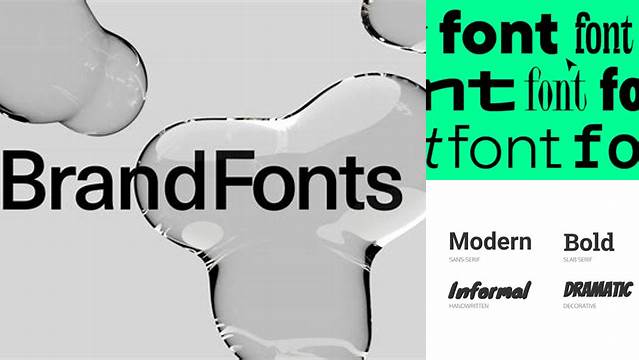
Understanding Font Packs
What exactly is a font pack? Simply put, it's a collection of fonts that are bundled together and sold as a single product. These packs often include a variety of styles, weights, and sizes, giving you a wide range of options to choose from. Font packs are a great way to expand your font library quickly and affordably.
Benefits of Using Font Packs
Using font packs offers several advantages. First, they're cost-effective. Buying individual fonts can be expensive, but a font pack gives you multiple fonts for the price of one. Second, they save time. Instead of searching for individual fonts, you can get a whole collection with a single purchase. Third, they offer variety. Font packs often include a range of styles, from classic serifs to modern sans-serifs, ensuring you have the right font for any project. This variety is crucial in maintaining visual interest and ensuring that your designs stand out. By investing in a font pack, you equip yourself with the tools needed to create stunning visuals that capture attention and convey your message effectively.
Types of Font Packs Available
There are various types of font packs available, each catering to different design needs. Some packs focus on a specific style, such as vintage or geometric fonts. Others offer a mix of styles to provide versatility. Understanding the different types of font packs can help you choose the right one for your project. Consider what kind of projects you typically work on and choose a pack that aligns with your design aesthetic. For example, if you often design for corporate clients, a pack of clean, professional sans-serif fonts would be a good choice. On the other hand, if you work on more creative projects, a pack of hand-drawn or script fonts might be more suitable. The key is to select a font pack that enhances your creative process and adds value to your designs.
Choosing the Right Font Pack
Selecting the right font pack can be a daunting task, but with a few considerations, you can make an informed decision. Start by identifying your design needs and preferences. What types of projects do you typically work on? What styles do you gravitate towards? Once you have a clear understanding of your needs, you can start browsing font packs that align with your criteria. Look for packs that offer a variety of styles and weights to ensure versatility. Also, consider the licensing terms. Make sure the font pack allows you to use the fonts for your intended purposes. By carefully evaluating your needs and researching your options, you can choose a font pack that enhances your design capabilities and helps you create stunning visuals.
Factors to Consider
Several factors should influence your choice of a font pack. Consider the readability of the fonts, especially if you're designing for the web. Also, think about the scalability of the fonts. Can they be used effectively in both small and large sizes? Additionally, pay attention to the character set. Does the font pack include all the characters you need, such as punctuation marks and accented characters? Finally, consider the overall aesthetic of the fonts. Do they align with your brand and style? By carefully considering these factors, you can choose a font pack that meets your technical and creative needs.
Where to Find Font Packs
Top Font Pack Trends in 2026
As we look ahead to 2026, several font pack trends are emerging. These trends reflect the evolving landscape of design and technology, and understanding them can help you stay ahead of the curve. From minimalist sans-serifs to bold display fonts, the font pack trends of 2026 offer something for everyone.
Minimalist Sans-Serifs
Minimalist sans-serif fonts continue to be popular in 2026. These fonts are clean, simple, and highly readable, making them ideal for a wide range of applications. A font pack featuring minimalist sans-serifs can be a versatile addition to your font library. These fonts work well in both headings and body text, and they pair well with a variety of other styles. If you're looking for a font pack that offers timeless elegance and readability, a minimalist sans-serif collection is a great choice.
Bold Display Fonts
Bold display fonts are making a statement in 2026. These fonts are designed to grab attention and create impact, making them perfect for headlines, logos, and branding materials. A font pack featuring bold display fonts can help you create eye-catching designs that stand out from the crowd. Experiment with different weights and styles to find the perfect font for your project. Whether you're designing a poster, a website, or a social media graphic, a bold display font can help you make a lasting impression.
Variable Fonts
Variable fonts are gaining traction in 2026. These fonts allow you to adjust various parameters, such as weight, width, and slant, giving you unprecedented control over your typography. A font pack featuring variable fonts can offer endless possibilities for customization and creativity. Explore the different parameters and create unique variations that perfectly match your design needs. Variable fonts are a cutting-edge technology that is transforming the world of typography, and they're definitely worth exploring in 2026.
Retro and Vintage Fonts
Retro and vintage fonts are experiencing a resurgence in 2026. These fonts evoke a sense of nostalgia and charm, making them perfect for projects that require a touch of character and personality. A font pack featuring retro and vintage fonts can help you create designs that stand out from the crowd. These fonts often feature unique details and quirks that add to their appeal. If you're looking for a font pack that offers a timeless aesthetic and a touch of whimsy, a retro and vintage collection is a great choice.
Geometric Fonts
Geometric fonts are a staple in modern design, and they continue to be popular in 2026. These fonts are characterized by their clean lines and geometric shapes, giving them a sleek and contemporary look. A font pack featuring geometric fonts can be a versatile addition to your font library. These fonts work well in both headings and body text, and they pair well with a variety of other styles. If you're looking for a font pack that offers a modern aesthetic and excellent readability, a geometric collection is a great choice.
How to Install and Manage Font Packs
Installing and managing font packs is a straightforward process, but it's important to follow the correct steps to avoid potential issues. Whether you're using Windows, macOS, or Linux, the process is similar. First, download the font pack from your chosen source. Then, extract the files from the archive. Finally, install the fonts on your system. Once the fonts are installed, you can manage them using a font management tool.
Installing Font Packs on Windows
To install font packs on Windows, start by downloading the font pack from your chosen source. Then, extract the files from the archive. Next, right-click on the font files and select "Install". Alternatively, you can copy the font files to the Fonts folder in the Control Panel. Once the fonts are installed, they will be available in your applications. Make sure to restart your applications if you don't see the fonts right away. By following these steps, you can easily install font packs on Windows and start using them in your designs.
Installing Font Packs on macOS
To install font packs on macOS, start by downloading the font pack from your chosen source. Then, extract the files from the archive. Next, double-click on the font files to open them in Font Book. Finally, click "Install Font" to install the fonts on your system. Once the fonts are installed, they will be available in your applications. Make sure to restart your applications if you don't see the fonts right away. By following these steps, you can easily install font packs on macOS and start using them in your designs.
Using Font Management Tools
Font management tools can help you organize and manage your font packs more effectively. These tools allow you to activate and deactivate fonts, create font sets, and resolve font conflicts. Some popular font management tools include FontExplorer X Pro, Suitcase Fusion, and Typeface. Using a font management tool can save you time and effort, and it can help you keep your font library organized and efficient. If you work with a lot of fonts, a font management tool is a worthwhile investment.
Tips for Using Font Packs Effectively
Using font packs effectively requires a bit of planning and consideration. Start by choosing fonts that align with your brand and style. Then, use fonts consistently throughout your designs. Also, pay attention to font pairings. Some fonts work well together, while others clash. Finally, don't be afraid to experiment and try new things. The key is to find a balance between consistency and creativity.
Creating a Cohesive Design
To create a cohesive design, choose fonts that complement each other. For example, you might pair a serif font with a sans-serif font to create contrast and visual interest. Also, consider the overall tone and style of your design. Choose fonts that reflect the message you're trying to convey. By carefully selecting and pairing fonts, you can create a cohesive and visually appealing design.
Font Pairing Best Practices
Font pairing is an art, but there are a few guidelines you can follow to create successful pairings. First, choose fonts with contrasting styles. For example, pair a bold display font with a simple body font. Second, consider the x-height of the fonts. Fonts with similar x-heights tend to pair well together. Third, pay attention to the overall aesthetic of the fonts. Choose fonts that share a common visual language. By following these best practices, you can create font pairings that enhance your design and improve readability.
Maintaining Readability
Readability is crucial in design, especially when designing for the web. Choose fonts that are easy to read in both small and large sizes. Also, pay attention to line height and letter spacing. Adjust these parameters to optimize readability. Finally, test your designs on different devices and browsers to ensure that the fonts are rendering correctly. By prioritizing readability, you can ensure that your designs are accessible and effective.
Common Mistakes to Avoid When Using Font Packs
When using font packs, there are a few common mistakes to avoid. First, don't use too many fonts in a single design. This can create a cluttered and confusing look. Second, don't use fonts that are difficult to read. This can frustrate your audience and detract from your message. Third, don't ignore licensing terms. Make sure you're using the fonts in accordance with the license agreement. By avoiding these common mistakes, you can use font packs more effectively and create better designs.
Overusing Fonts
Overusing fonts is a common mistake that can detract from your design. Stick to a maximum of two or three fonts per design. This will help you create a cohesive and visually appealing look. Also, use fonts strategically. Use different fonts for headings and body text to create contrast and visual interest. By limiting your font choices and using them strategically, you can create a more effective design.
Ignoring Licensing Terms
Ignoring licensing terms can lead to legal issues. Make sure you understand the licensing terms for the font packs you're using. Some fonts are free for personal use but require a commercial license for business use. Others have restrictions on how they can be used. By reading and understanding the licensing terms, you can avoid potential legal problems.
Future Trends in Font Packs
As we look ahead, several exciting trends are emerging in the world of font packs. These trends reflect the evolving landscape of design and technology, and they offer new opportunities for creativity and innovation. From AI-powered font generation to more sophisticated variable fonts, the future of font packs is bright.
AI-Powered Font Generation
AI-powered font generation is a promising trend that could revolutionize the way we create and use fonts. These tools use artificial intelligence to generate new fonts based on user input. This could make it easier to create custom fonts that perfectly match your brand and style. While AI-powered font generation is still in its early stages, it has the potential to transform the world of typography.
More Sophisticated Variable Fonts
Variable fonts are becoming more sophisticated, offering more control over font parameters. This allows for greater customization and creativity. Future font packs may include variable fonts with even more parameters, giving designers unprecedented control over their typography. These advanced variable fonts could open up new possibilities for design and innovation.
Choosing the right font pack can significantly enhance your design projects. By understanding the different types of font packs available, considering the factors that influence your choice, and following best practices for installation and usage, you can make informed decisions and create stunning visuals. As we look ahead to 2026, the trends in font packs offer exciting opportunities for creativity and innovation. So, dive in, explore your options, and find the perfect font pack for your next project!